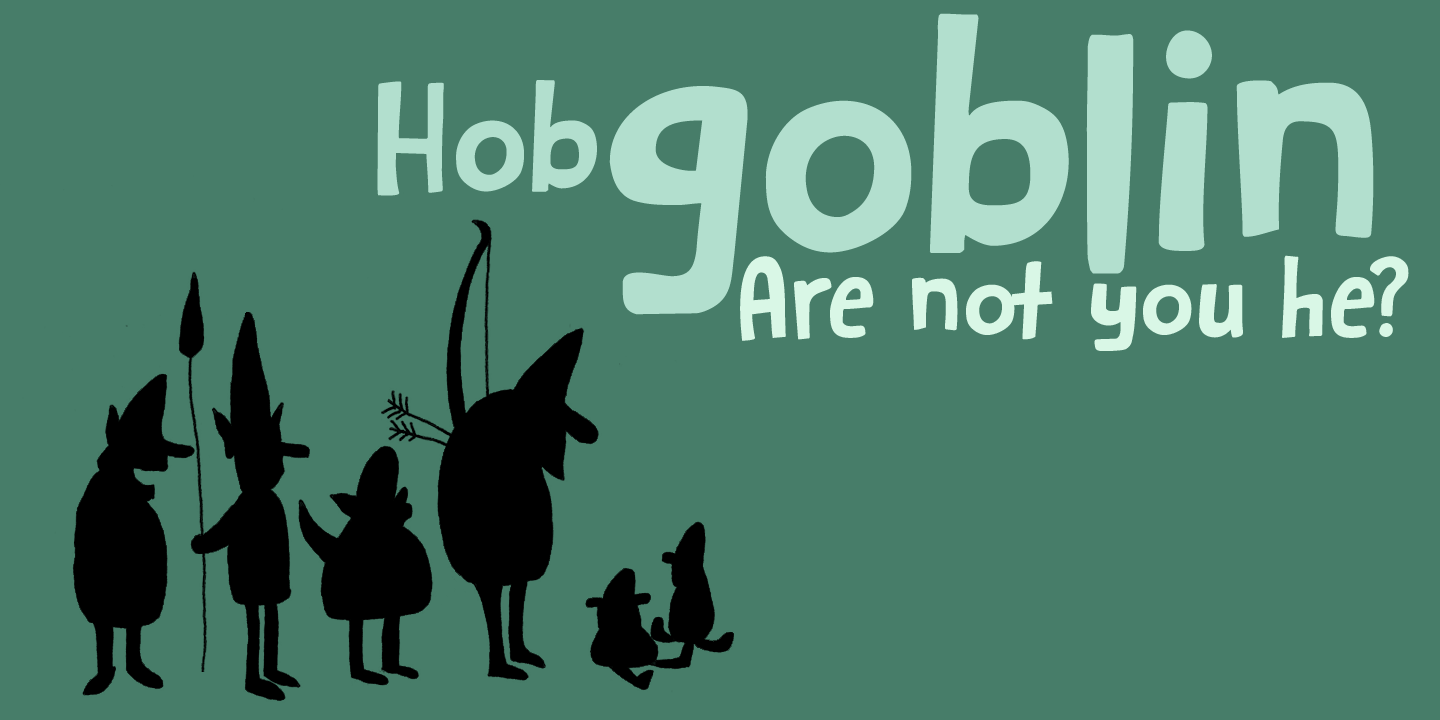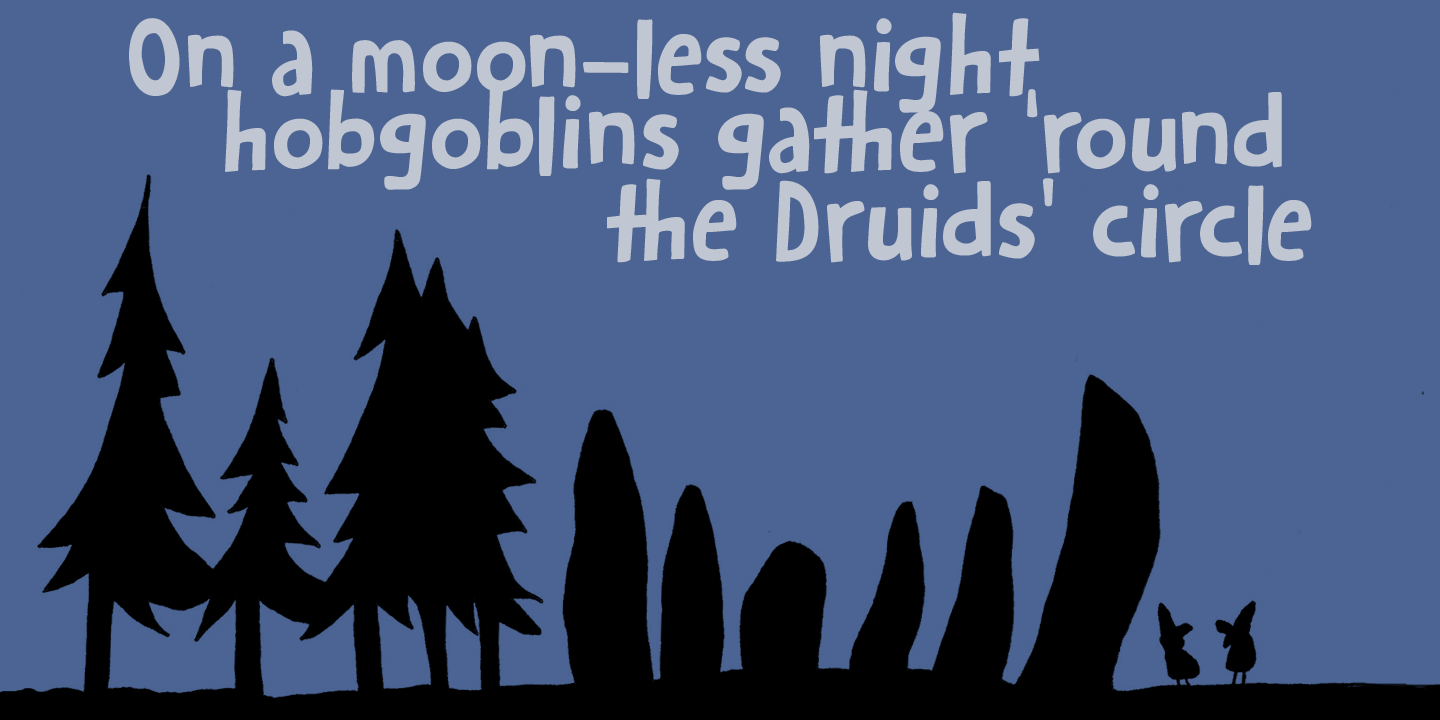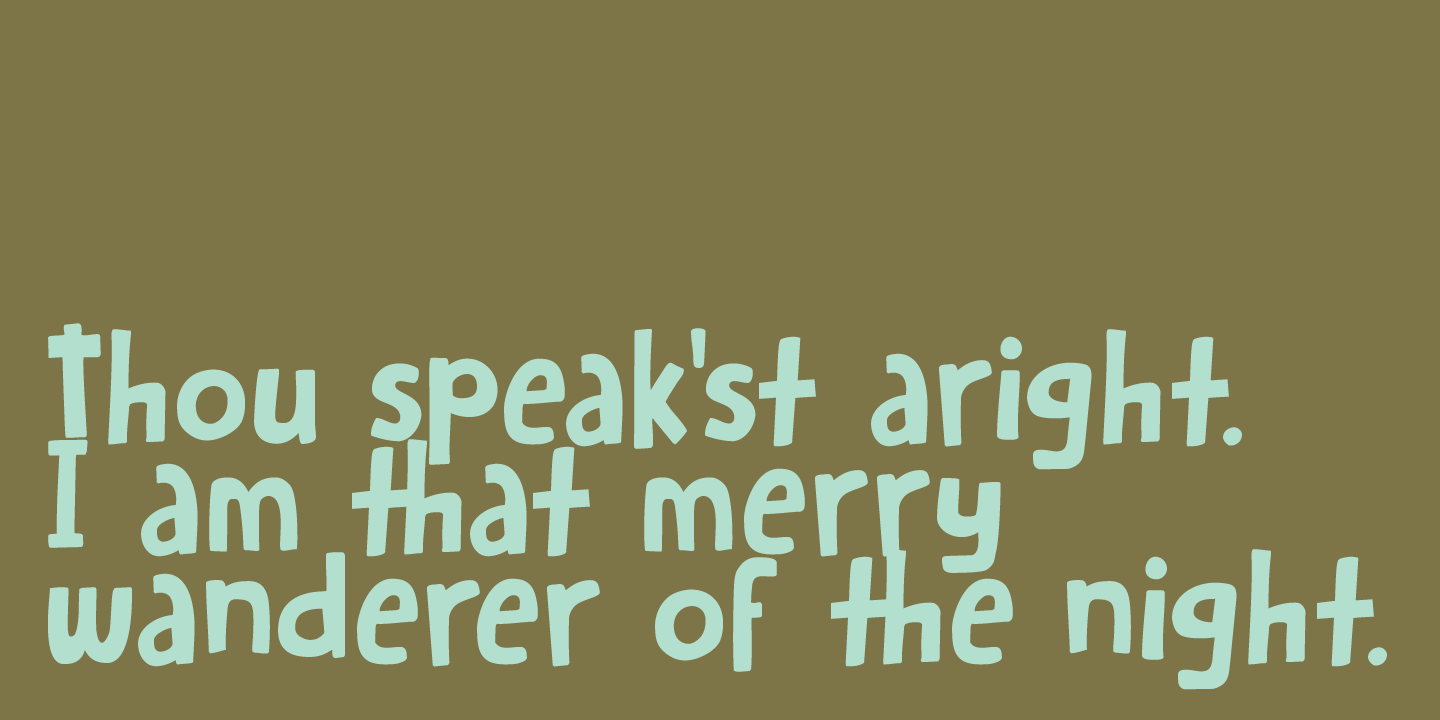
Hobgoblin
Hobgoblin is a cute and happy little font. It would be ideal for children's books, games and apps. Hobgoblin come with mischievous glyphs and a pot-o-gold worth of diacritics.